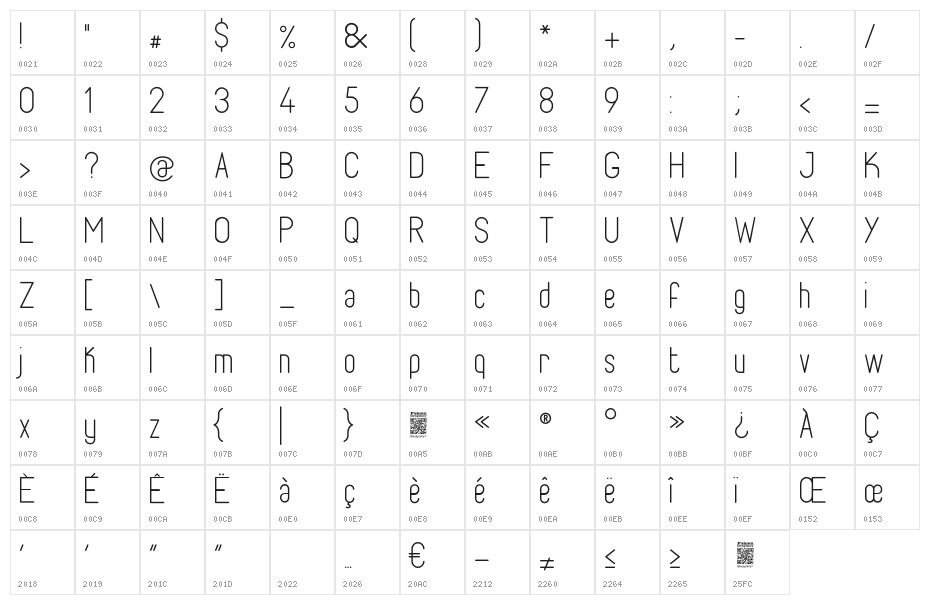
Fabiolo-Light Font
Fabiolo-Light Description
This font exhibits a clean and modern aesthetic with a geometric sans-serif style. The characters are uniform in width, providing a harmonious and balanced appearance. The strokes are consistent and thin, contributing to a light and airy feel. The uppercase letters are tall and slightly narrow, while the lowercase letters maintain a similar width, ensuring readability. The numerals are straightforward and align well with the overall design. Special characters are distinct and integrate seamlessly with the rest of the set, making it versatile for various applications.
| Proposed Projects | Ideal for minimalist branding, contemporary web design, and clean editorial layouts. |